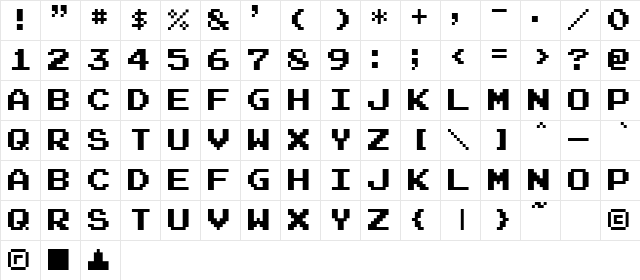
Arcade Normal Regular Free Font
Arcade Normal Regular
Design Context for Arcade Normal
Arcade Normal is a composed and adaptable typeface that performs quietly and consistently across a wide range of design contexts.